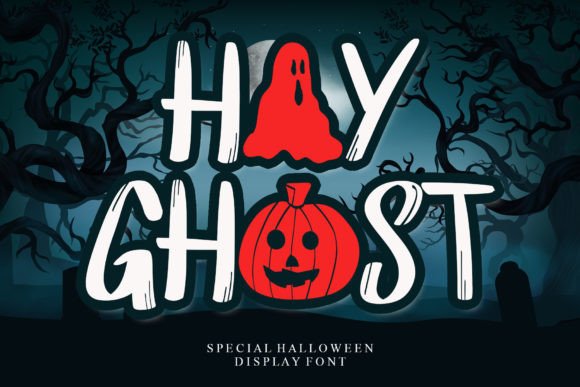
Unleash the spooky charm of Halloween with Hay Ghost, a spine-tingling display font that will cast a spellbinding aura over your designs. This font family exudes a playful yet chilling spirit, making it the perfect choice for adding a touch of haunting elegance to your creative endeavors.
Born from the creative forge of Letterafa Studio, Hay Ghost boasts a thick-lettered structure, reminiscent of the mischievous grin of a phantom. Each character dances across the screen, carrying the weight of a thousand haunted tales, ready to add an eerie charm to your designs.
Whether you're conjuring up spine-chilling Halloween invitations, crafting spellbinding posters, or weaving enchanting logos, Hay Ghost will be your ghostly companion. Its undeniable charm will leave your audience spellbound, eager to unravel the mysteries hidden within your designs.
But beware, dear adventurers, for Hay Ghost is not just a pretty font. It's a gateway to a world of ghostly delight, where imagination runs wild and creativity knows no bounds. Let Hay Ghost be your guide as you navigate the haunted corridors of your imagination, conjuring up breathtaking designs that will leave your audience breathless.
So, embrace the eerie allure of Hay Ghost, let your creativity soar, and create designs that will haunt the dreams of all who behold them. Dare to explore the realm of the supernatural, where Hay Ghost awaits, ready to weave its magical spell on your designs.